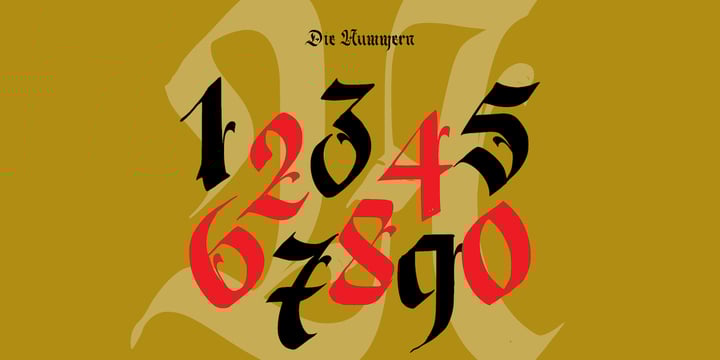
Berliner Fraktur
by Resistenza
The Berliner Fraktur Font Family was designed by Giuseppe Salerno, Paco González and published by Resistenza. Berliner Fraktur contains 4 styles and family package options. More about this family
Berliner Fraktur font is a captivating display typeface that bears the distinctive charm of traditional Fraktur scripts while incorporating modern elements. Designed with a flat brush, it inherits its essence from the renowned modern Fraktur created by Rudolf Koch. However, Berliner Fraktur carves out its own identity through broken strokes, which infuse it with a raw, handmade aesthetic.
The font's broken strokes lend it a unique character, evoking a sense of craftsmanship and authenticity. This departure from perfectly smooth lines adds depth and texture to the geometric calligraphy, setting it apart from more conventional typefaces. Berliner Fraktur strikes a balance between tradition and innovation, offering a fresh interpretation of a classic style.
What sets Berliner Fraktur apart are its intriguing alternates and ligatures, accessible through OpenType features. These variations inject personality into the typeface, allowing for greater versatility in design. Whether used for headlines, posters, or branding materials, the font's alternate characters and ligatures add flair and sophistication to any project.
In essence, Berliner Fraktur is a fusion of tradition and modernity, craftsmanship and innovation. Its broken strokes and handmade feel give it a distinct personality, while its alternates and ligatures offer flexibility and creativity to designers. With Berliner Fraktur, one can evoke the rich history of Fraktur scripts while embracing the contemporary demands of design.
Designers: Giuseppe Salerno, Paco González
Foundry: Resistenza